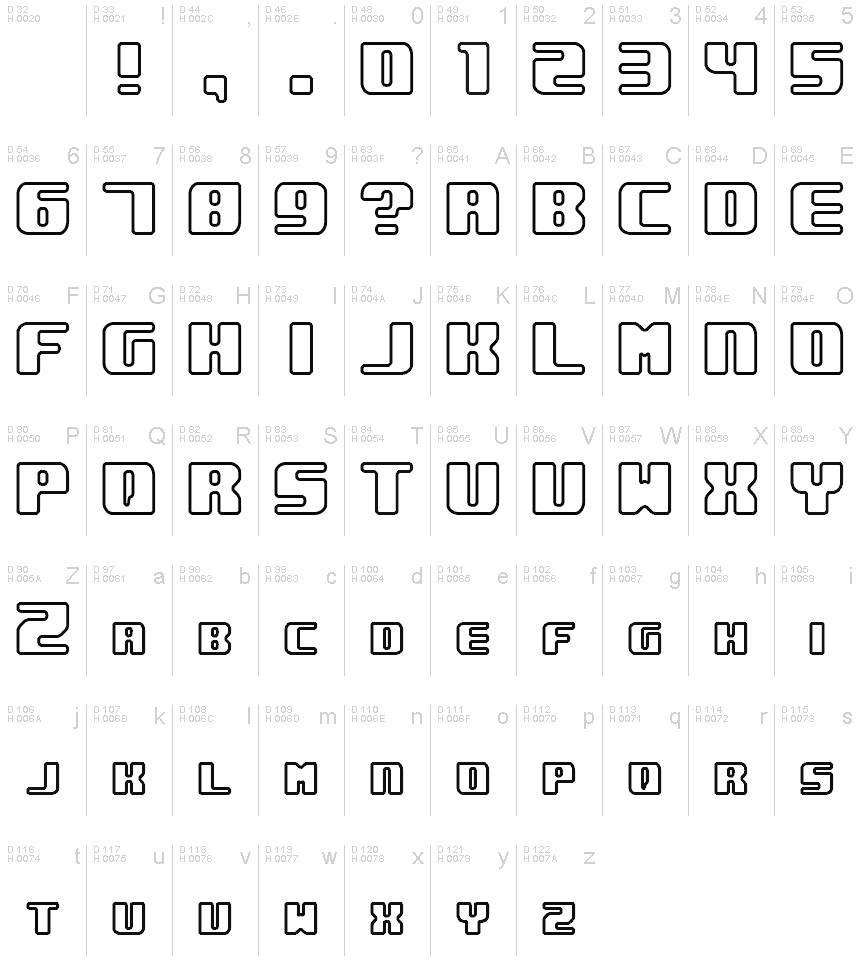
Underwhelmed Outline BRK
Underwhelmed Outline BRK is a display font that exudes a modern techno vibe with its outlined, semi-light characters and expanded width. Crafted by ÆNIGMA FONTS, it stands out for its cool, futuristic feel that makes it perfect for projects that require a touch of edginess without sacrificing readability.
The font's clean lines and geometric form factor lend themselves to an array of creative applications. From tech startups looking to brand their next innovative product to graphic designers aiming to make a bold statement on posters and flyers, Underwhelmed Outline BRK offers versatility. Its outlined style adds depth and dimension to the text while maintaining an air of simplicity.
Whether you're designing an eye-catching headline for a website or giving your next presentation a sleek, contemporary edge, Underwhelmed Outline BRK is adept at capturing attention and leaving a lasting impression.
The font's clean lines and geometric form factor lend themselves to an array of creative applications. From tech startups looking to brand their next innovative product to graphic designers aiming to make a bold statement on posters and flyers, Underwhelmed Outline BRK offers versatility. Its outlined style adds depth and dimension to the text while maintaining an air of simplicity.
Whether you're designing an eye-catching headline for a website or giving your next presentation a sleek, contemporary edge, Underwhelmed Outline BRK is adept at capturing attention and leaving a lasting impression.